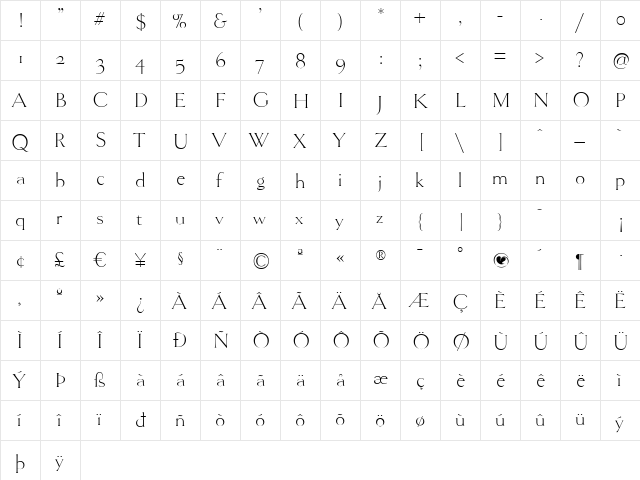
GoldenbookOSF Light
| Foundry | Mark Simonson |
| Designer | Mark Simonson |
Design Context for GoldenbookOSF Typeface
GoldenbookOSF takes a measured approach to typography — its balanced proportions and neutral character make it a reliable workhorse for both digital and print work. The delicate stroke weight brings airiness and refinement to layouts.